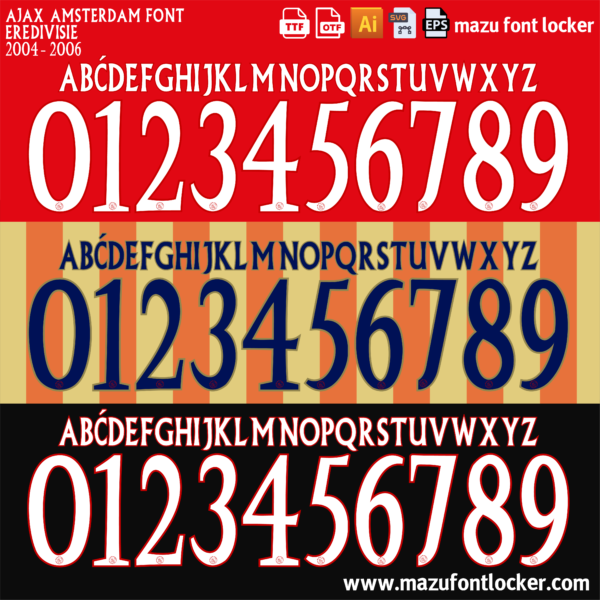
Ajax Amsterdam 2004-2006 Font Vector – Legendary De Godenzonen
Ajax Amsterdam 2004-2006 Font Vector – Authentic Godenzonen Typeface
Download the Ajax Amsterdam 2004-2006 Font Vector and powerfully recreate the bold and dynamic match-style lettering worn by the Ajax Amsterdam squad during their iconic 2004-2006 era. This font captures the strong, youthful, and commanding typography that embodies the passionate red-and-white Godenzonen spirit, delivering unmatched authenticity for premium jersey mockups and football designs.
Why Choose Ajax Amsterdam 2004-2006 Font
This font stands out because of its sharp details and legendary club identity. Every letter and number is crafted to match the exact style used on the players’ shirts during the exciting 2004-2006 period. Whether you are making realistic retro shirt templates or nostalgic football content, the Ajax Amsterdam 2004-2006 Font gives your designs that authentic Godenzonen energy.
The letterforms in the Ajax Amsterdam 2004-2006 Font are tall, bold, and highly refined. The strokes have a strong yet clean weight that looks powerful and modern on the back of jerseys while maintaining excellent clarity and sophistication.
The numerals use clean curves and firm edges, giving them a confident and premium appearance. This design ensures great legibility whether used in large print formats, digital mockups, or video content.
• Full uppercase A–Z and numbers 0–9 in authentic Ajax 2004-2006 style
• Special Ajax crest glyph for accurate shirt number detailing
• Create highly realistic Ajax Amsterdam 2004-2006 jersey mockups with accurate lettering
• Design stunning retro matchday posters, score graphics, and squad announcements
• Produce custom Godenzonen merchandise with a classic yet dynamic aesthetic
Ajax Amsterdam 2004-2006 Era
During the 2004-2006 period, Ajax Amsterdam, proudly known as De Godenzonen (The Sons of the Gods), experienced a thrilling renaissance of attacking football. This era marked the emergence of one of the most talented young generations in the club’s modern history.